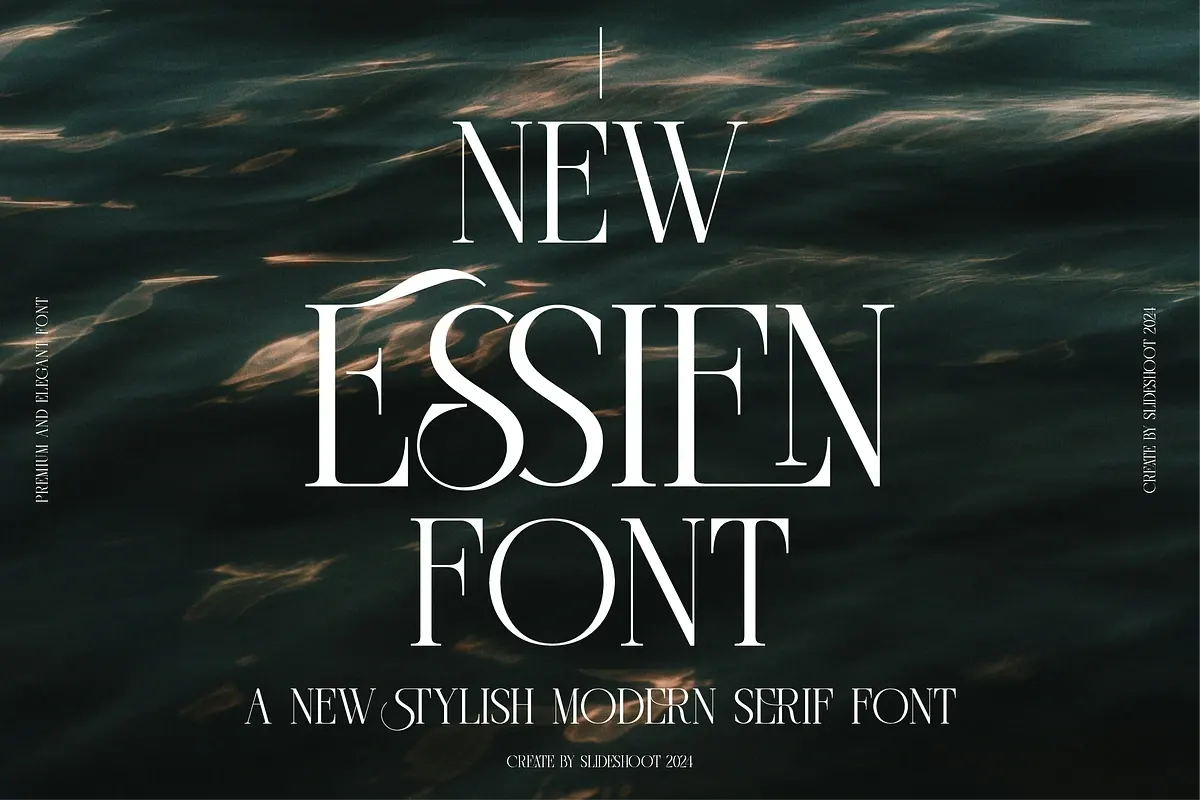
New Essien || Modern Serif Font Free Download is a contemporary typeface that combines elegance with a clean, modern design. With its refined serifs and crisp lines, this font is ideal for creating high-end branding, editorial layouts, logos, and web designs. Its sophisticated appearance makes it perfect for businesses, luxury brands, and creative professionals who want to add a touch of class to their projects. Whether you're working on a sleek magazine cover or a minimalist logo, New Essien || Modern Serif Font Free Download lets you test its versatility and charm in personal or concept work before purchasing a commercial license. Bring a polished, professional look to your designs with this modern, stylish serif font.